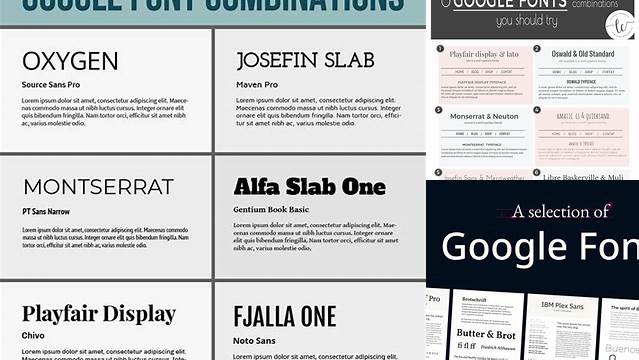
Best Google Fonts: 2026 Design Guide
Choosing the right font combinations can make or break your design. In 2026, the typography landscape continues to evolve, with new trends and classic pairings making a splash. Let's dive into the best Google Fonts combinations that will help your projects stand out. This comprehensive guide will explore various font pairings, ensuring your message is delivered with style and clarity.
1. Serif and Sans-Serif Harmony
One of the most reliable ways to create visually appealing designs is to combine a serif font with a sans-serif font. This pairing offers a delightful contrast, making your text both legible and engaging. Think of it as the classic duo in the font world, like peanut butter and jelly! When selecting your fonts, consider how they complement each other in weight and style. A bolder serif paired with a lighter sans-serif, or vice versa, can create a balanced and harmonious look.
For example, pairing a timeless serif font like Playfair Display with a clean sans-serif like Montserrat can add a touch of elegance and modernity to your designs. Playfair Display brings a certain sophistication to headlines, while Montserrat keeps body text clean and readable. This combination works wonders for websites, branding materials, and even print designs. The key is to ensure the fonts share a common visual language, whether through similar x-heights, stroke widths, or overall aesthetic. The interplay between the serif and sans-serif elements creates a dynamic hierarchy, guiding the reader's eye through the content. Guys, remember that the goal is to create a visual rhythm that enhances readability and reinforces your message. So, experiment with different weights and sizes to find the perfect balance for your project. Another great option is pairing Merriweather with Open Sans. Merriweather provides a robust and readable serif for body text, while Open Sans offers a clean and modern sans-serif for headings or navigation. This combination is particularly effective for websites and blogs where readability is paramount. The contrast in styles adds visual interest without sacrificing clarity, making it a go-to choice for many designers.
2. Playfair Display and Montserrat
Playfair Display and Montserrat – a match made in typographic heaven! This combination is incredibly popular for a reason: it’s elegant, modern, and versatile. Playfair Display, with its high contrast and delicate serifs, brings a touch of sophistication to headlines and titles. Montserrat, a clean and geometric sans-serif, complements Playfair beautifully, providing a solid foundation for body text. Using this pair, guys, is like putting on a perfectly tailored suit – you just can't go wrong! The elegance of Playfair Display shines through in larger sizes, making it ideal for headings and subheadings. Its distinctive serifs add a touch of class, while the clean lines of Montserrat ensure readability in paragraphs and smaller text sizes. This combination works especially well for websites and branding materials that aim for a refined, modern aesthetic. Think fashion blogs, luxury brands, or professional portfolios – Playfair Display and Montserrat can elevate the visual appeal of any design. The key to using this pairing effectively is to maintain a consistent visual hierarchy. Playfair Display should be reserved for prominent headings and titles, while Montserrat handles the bulk of the content. This creates a clear distinction between different sections of your design, making it easier for the audience to navigate and digest the information. Experiment with different weights of Montserrat to add subtle variations and visual interest. For example, using a bolder weight for subheadings can help break up the text and guide the reader's eye.
3. Lato and Montserrat
Another fantastic pairing is Lato and Montserrat. These two sans-serif fonts blend seamlessly, offering a clean and modern aesthetic that's perfect for a wide range of projects. Lato, with its semi-rounded details, exudes warmth and approachability, while Montserrat's geometric precision adds a touch of sophistication. This combination is like a friendly handshake – it’s inviting and professional. When you’re aiming for a contemporary feel, Lato and Montserrat are your go-to fonts. Lato is incredibly versatile and works well for both body text and headings. Its subtle rounded corners give it a human touch, making it more inviting than some other sans-serif fonts. Montserrat, on the other hand, provides a sturdy and reliable option for headings, subheadings, and even shorter blocks of text. Its geometric structure ensures clarity and legibility, even at smaller sizes. The key to a successful Lato and Montserrat pairing is to leverage the subtle differences in their personalities. Use Montserrat for headings and titles to create a strong visual impact, and then switch to Lato for body text to maintain readability and a sense of warmth. This combination is particularly effective for websites, mobile apps, and user interfaces where clarity and ease of reading are crucial. Experimenting with different weights of each font can add depth and visual interest to your design. For example, using a bold Montserrat for main headings and a lighter weight Lato for body text creates a clear visual hierarchy. This helps guide the reader through the content and ensures that the most important information stands out. Don't be afraid to play around with size and spacing as well. Adjusting the line height and letter spacing can significantly impact the overall look and feel of your typography.
4. Roboto and Open Sans
Roboto and Open Sans are a powerhouse duo in the world of web typography. Both are highly readable and versatile, making them excellent choices for a variety of projects. Roboto, with its geometric forms and friendly curves, offers a modern and approachable feel, while Open Sans is known for its simplicity and clarity. This pairing is like a reliable workhorse – it gets the job done efficiently and effectively. Think of Roboto and Open Sans as the dynamic duo of web fonts, always ready to tackle any design challenge. Roboto’s slightly condensed proportions make it ideal for headlines and shorter blocks of text, while Open Sans shines as a body text font due to its exceptional readability. The combination of these two fonts creates a harmonious balance between personality and functionality. When using Roboto and Open Sans, consider the specific needs of your project. For example, if you’re designing a website with a lot of text, Open Sans can be your primary font for body text, ensuring a comfortable reading experience. Roboto can then be used for headings, subheadings, and call-to-action buttons to add visual interest and hierarchy. This approach keeps the design clean and professional while still maintaining a sense of personality. Another effective strategy is to experiment with different weights and styles of each font. Roboto offers a wide range of weights, from Thin to Black, allowing you to create visual contrast and emphasis within your design. Similarly, Open Sans has several variations, including Regular, Italic, and Bold, which can be used to highlight key information or add subtle nuances to the typography. The key is to find the right balance between the two fonts, ensuring that they complement each other without overpowering the overall design. Remember, guys, that typography is an integral part of the user experience, so choosing the right font pairing can significantly impact the success of your project.
5. Merriweather and Open Sans
Merriweather and Open Sans are a classic combination that exudes sophistication and readability. Merriweather, a serif font designed specifically for on-screen reading, offers a warm and inviting feel, while Open Sans, a clean and neutral sans-serif, provides excellent clarity and legibility. This pairing is like a well-tailored suit – timeless, elegant, and always in style. Using Merriweather and Open Sans together creates a sense of professionalism and approachability. Merriweather’s robust character shapes make it ideal for body text, where readability is paramount. Its slightly condensed letterforms allow for efficient use of space without sacrificing legibility. Open Sans, on the other hand, is a versatile sans-serif that works well for headings, subheadings, and navigation menus. Its neutral design ensures that it doesn’t compete with Merriweather, creating a harmonious visual balance. This combination is particularly effective for websites, blogs, and online publications where the focus is on content. The serif and sans-serif pairing provides a clear visual hierarchy, making it easy for readers to scan and digest information. Merriweather’s warmth and character add a touch of personality, while Open Sans ensures a clean and modern aesthetic. When working with Merriweather and Open Sans, consider the overall tone and style of your project. For a more formal or traditional design, use Merriweather for both headings and body text, and Open Sans for secondary elements like captions or navigation. For a more contemporary look, use Merriweather for body text and Open Sans for headings and subheadings. This creates a subtle contrast that adds visual interest without sacrificing readability. Another important factor to consider is the weight and size of the fonts. Experimenting with different weights of Merriweather and Open Sans can help you create a clear visual hierarchy and emphasize key information. For example, using a bold Open Sans for headings and a regular Merriweather for body text creates a strong contrast that draws the reader’s eye to the important elements of the page. Guys, this pairing is really versatile, so don't be afraid to experiment!